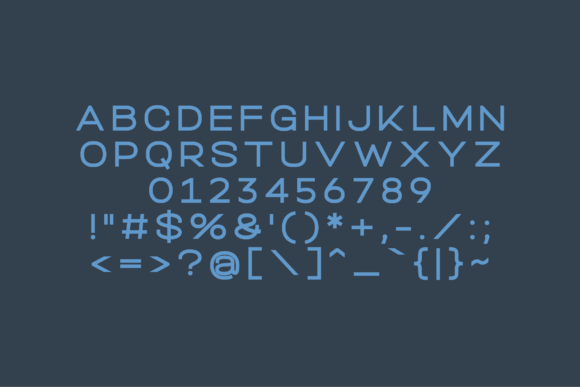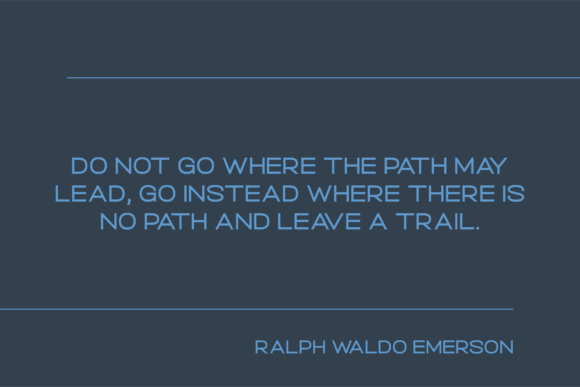
Introducing Delcation: The Ultimate Modern Sans Serif Typeface
In the world of typography, a font can make all the difference in the aesthetic and tone of a design. For designers and crafters looking for a modern, classy sans serif typeface, look no further than Delcation. This versatile font is perfect for a wide range of applications, from logos and weddings to invitations, quotes, advertisements, print, magazines, and more.
What is Delcation?
Delcation is a sans serif typeface that boasts a clean and sleek design. It features upper characters, numbers 0-9, and a range of punctuation and symbols, making it a comprehensive font for various design needs. The font’s modern and classy look makes it an excellent choice for designers who want to add a touch of sophistication to their work.
Key Features of Delcation
- Upper Characters: Delcation features a complete set of upper characters, ensuring that you have all the letters you need to create stunning designs.
- Numbers 0-9: The font includes numbers 0-9, making it perfect for designs that require numerical elements.
- Punctuation and Symbols: Delcation comes with a range of punctuation and symbols, providing you with the flexibility to create complex designs.
- Modern and Classy Design: The font’s sleek and clean design makes it perfect for modern designs that require a touch of elegance.
Use Cases for Delcation
Delcation is an extremely versatile font, making it suitable for various design applications. Here are some use cases where Delcation excels:
- Logos: Create professional and modern logos that make a lasting impression with Delcation.
- Weddings and Invitations: Add a touch of elegance to your wedding invitations, save-the-date cards, and other wedding-related designs.
- Quotes and Advertisements: Use Delcation to create eye-catching quotes and advertisements that grab attention.
- Print and Magazines: Delcation is perfect for print designs, including magazines, brochures, and flyers.
Why Choose Delcation?
With so many fonts available, why choose Delcation? Here are a few reasons why Delcation stands out:
- Unique Design: Delcation’s modern and classy design sets it apart from other sans serif typefaces.
- Versatility: The font’s versatility makes it suitable for a wide range of design applications.
- Easy to Read: Delcation is easy to read, making it perfect for designs that require clear communication.
Tips for Using Delcation
To get the most out of Delcation, here are some tips for using the font:
- Experiment with Font Sizes: Delcation looks great in various font sizes, so experiment with different sizes to find the perfect fit for your design.
- Pair with Other Fonts: Delcation pairs well with other fonts, so don’t be afraid to combine it with other typefaces to create a unique look.
- Use it for Headings and Body Text: Delcation is suitable for both headings and body text, making it a great choice for designs that require a consistent look.
In conclusion, Delcation is a modern, classy sans serif typeface that is perfect for designers and crafters looking for a versatile font. With its clean design, comprehensive character set, and versatility, Delcation is an excellent choice for various design applications. Whether you’re creating logos, weddings, invitations, quotes, advertisements, print, magazines, or more, Delcation is the perfect font for your next project.